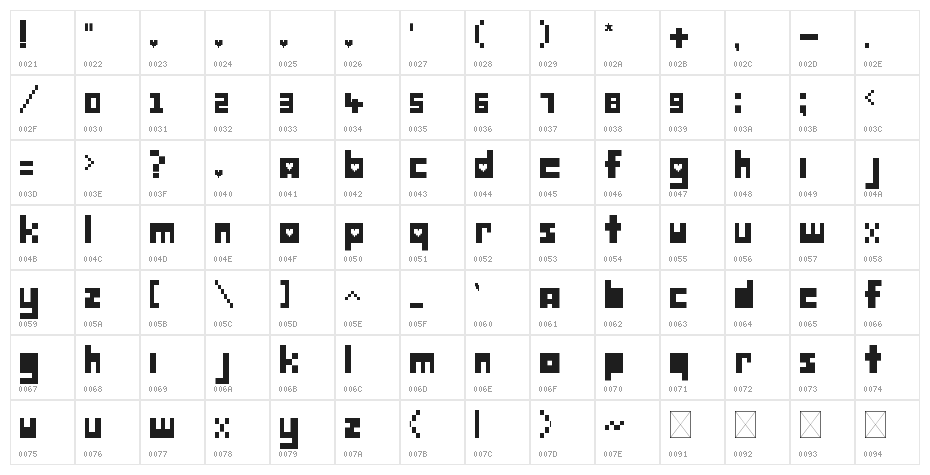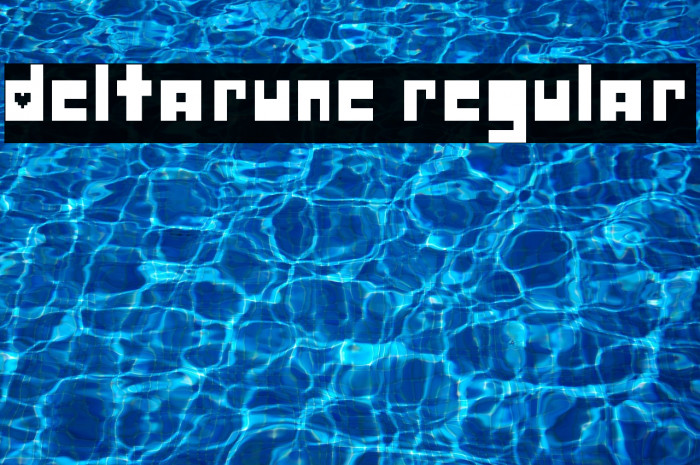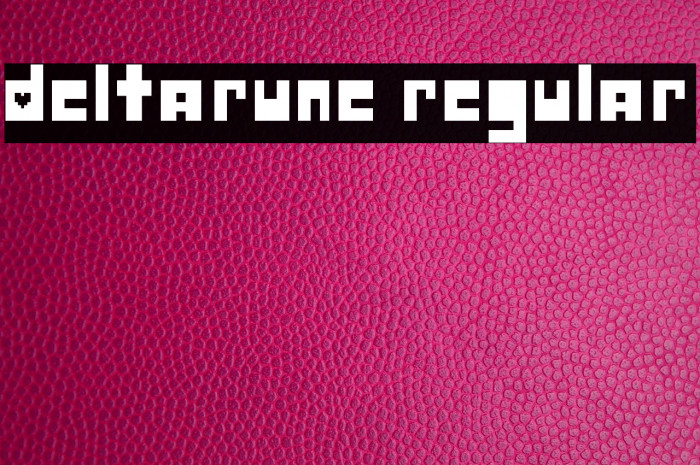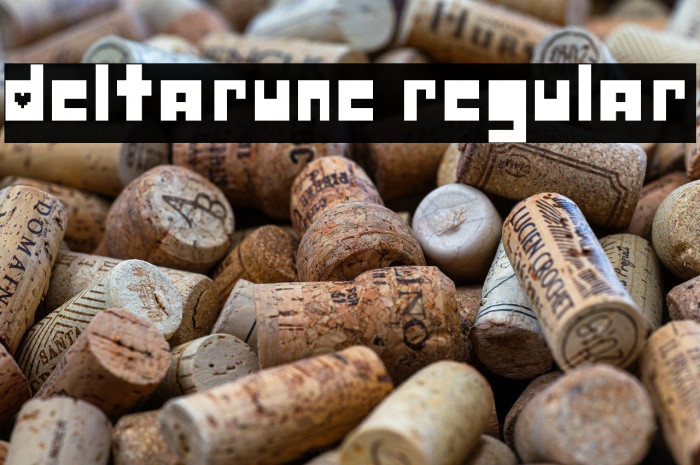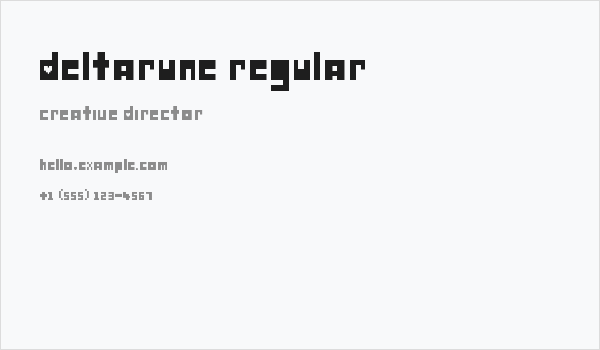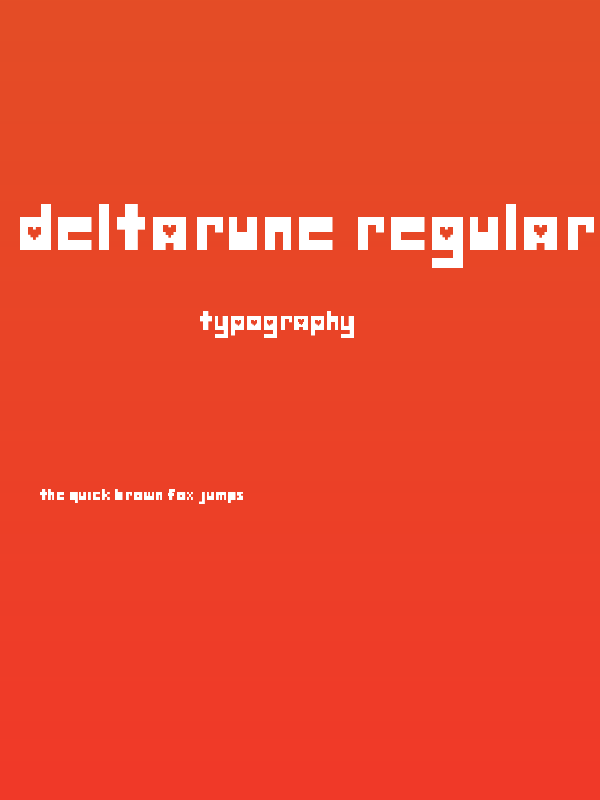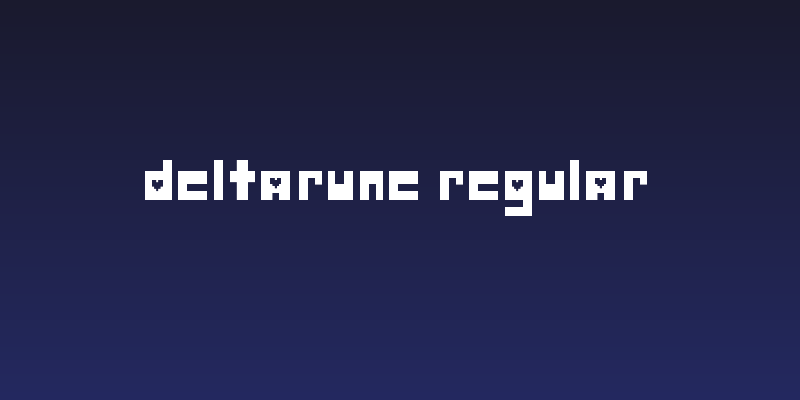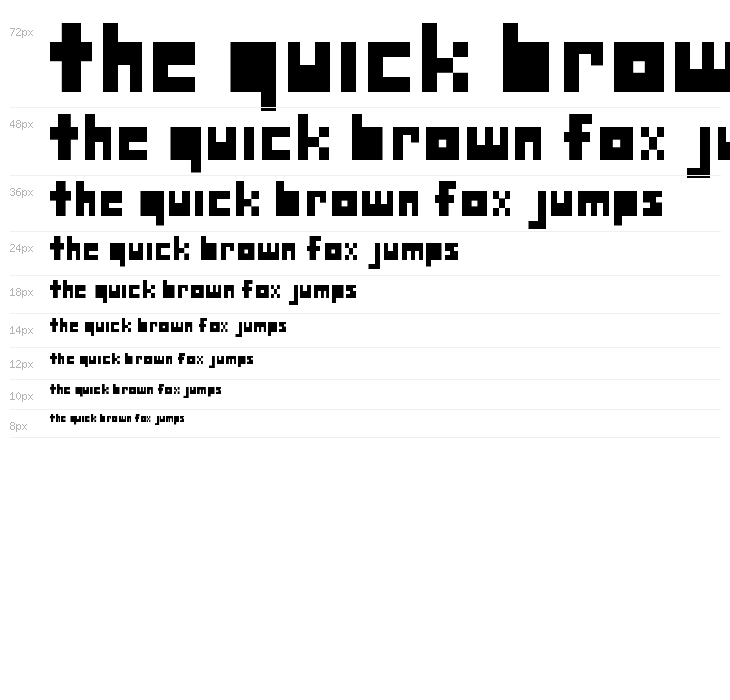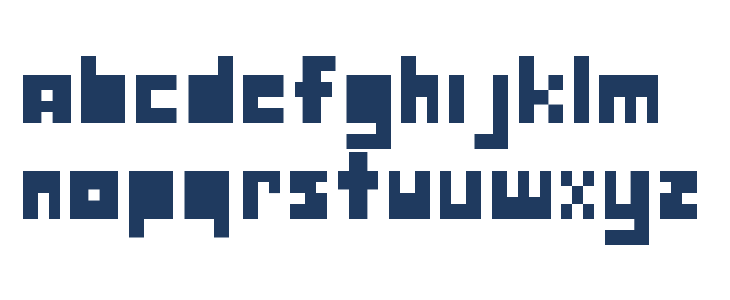
This font features a bold, pixelated style reminiscent of retro video games. Each character is constructed with a blocky, geometric design, giving it a distinctly digital appearance. The uppercase and lowercase letters maintain a uniform height, contributing to a cohesive and structured look. The numerals and special characters follow the same pixelated theme, ensuring consistency across all glyphs. The font's unique charm is enhanced by its playful heart symbols, adding a touch of whimsy. Its simplicity and clarity make it highly legible, even at smaller sizes.
| Overall Style | Retro, Digital |
| Use Case | Logos, Headlines, Digital Art |
| Proposed Projects | Ideal for video game design, retro-themed graphics, digital art projects, and playful branding. |